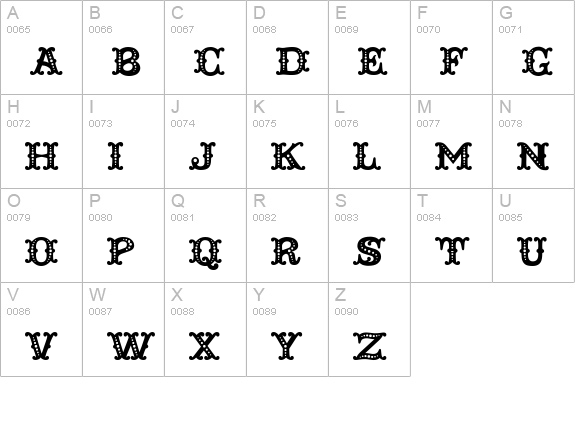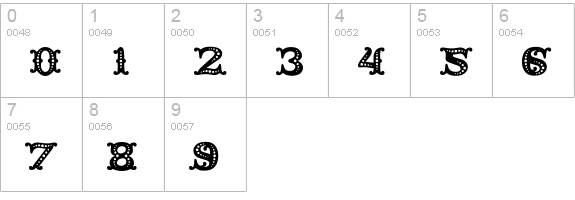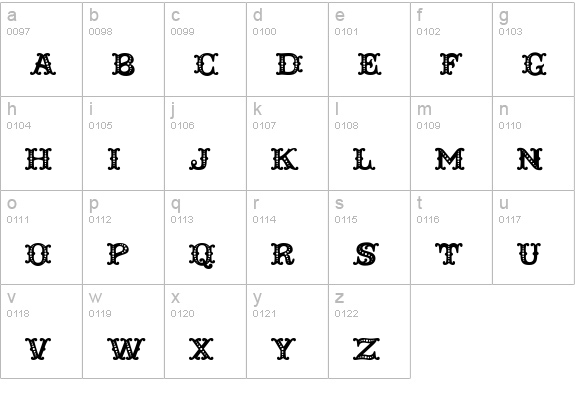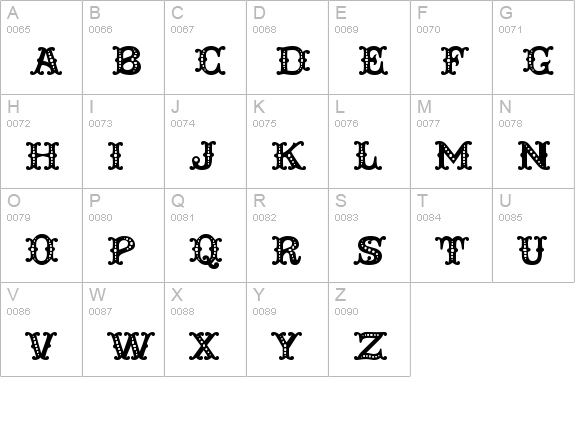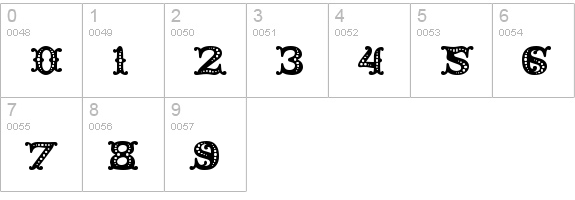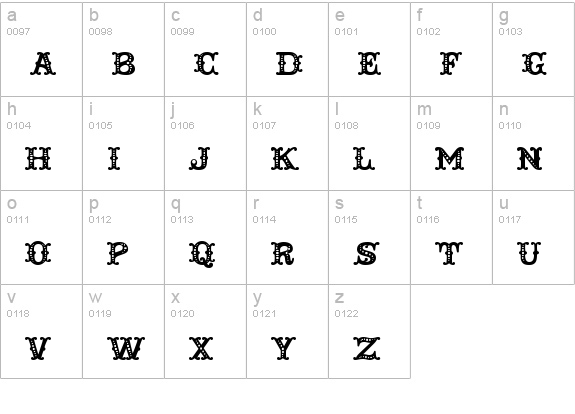
Taqueria Black Decor is a maximum-weight, dramatic variant in the Taqueria typeface family \xE2\x80\x94 well suited to maximum-impact headlines, posters, and packaging.
Introducing Taqueria Black Decor, a captivating and versatile font that will elevate your designs to new heights. This exquisite typeface strikes the perfect balance between elegance and edginess, making it an ideal choice for a wide range of design projects. With its bold and distinctive letterforms, Taqueria Black Decor exudes a sense of confidence and sophistication. Its intricate details and unique flourishes add a touch of artistic flair, making it stand out from the crowd. Whether you're working on a restaurant menu, a poster, a logo, or any other creative endeavor, this font will effortlessly bring your vision to life. Its versatility allows it to adapt to various design styles and themes, ensuring that your message is conveyed with utmost clarity and impact. What makes Taqueria Black Decor even more appealing is that it is free to download at FontsMarket.com. Yes, you read that right - this exceptional font is yours for the taking, without any cost whatsoever. By making it freely available, the creators of Taqueria Black Decor are providing an opportunity for designers, both professionals and enthusiasts, to access a high-quality font that will enhance their work. So, why wait? Experience the beauty and versatility of Taqueria Black Decor today by downloading it for free at FontsMarket.com. Transform your designs into works of art with this exquisite font and let your creativity shine. Don't miss out on the chance to elevate your designs with this stunning typeface - it's time to make a bold statement with Taqueria Black Decor.